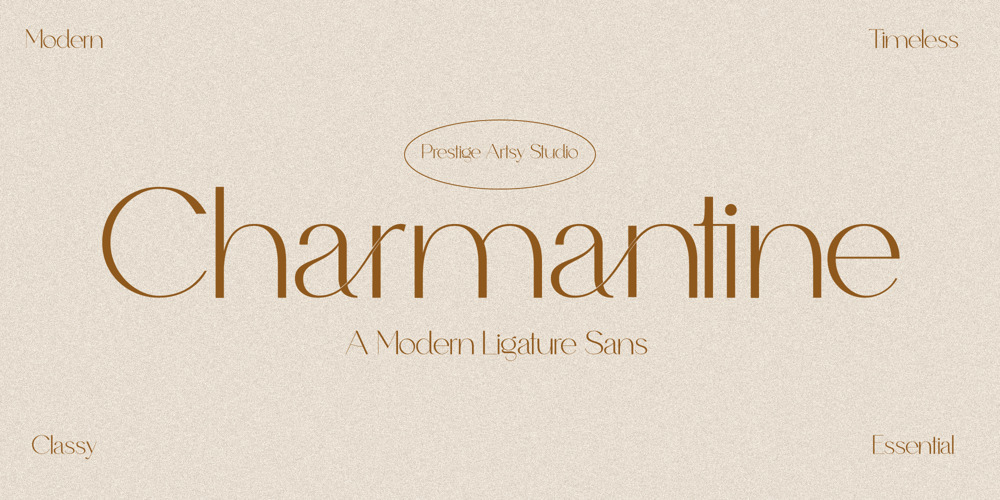
Charmantine Font Family was designed by Zak M and published by Prestige Artsy Studio. Charmantine contains 1 styles and family package options. Charmantine is a revolutionary, classy and delicate ligature sans-serif that has been designed uniquely for modern projects. An excellent arsenal for branding, mark logos, monograms, packaging, invitations, magazines and more. The delicacy of Charmantine with its perfect curves makes it a great choice for anyone who would like to add a touch of modernity to their projects.